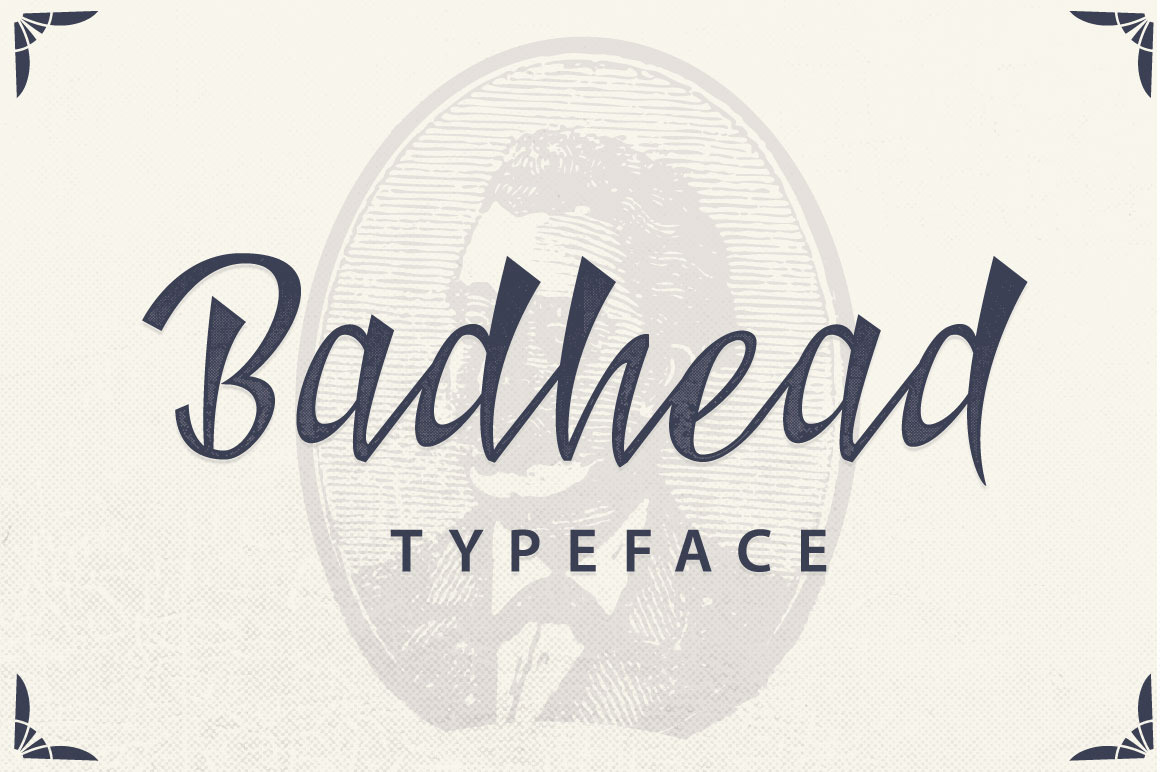
Badhead Typeface
Badhead Typeface is a New Style Font. Badhead Typeface is suitable for Apparel Brand, any greeting cards, Logotype, or any design that strong and elegant touch. Mix and match the alternate characters to add an attractive message to your design.
246 glyphs and alternate character contain with opentype features. Stylistic alternates, Ornament, Swash and more.You can access all those alternate characters by using OpenType savvy programs such as Adobe Illustrator and Adobe InDesign.